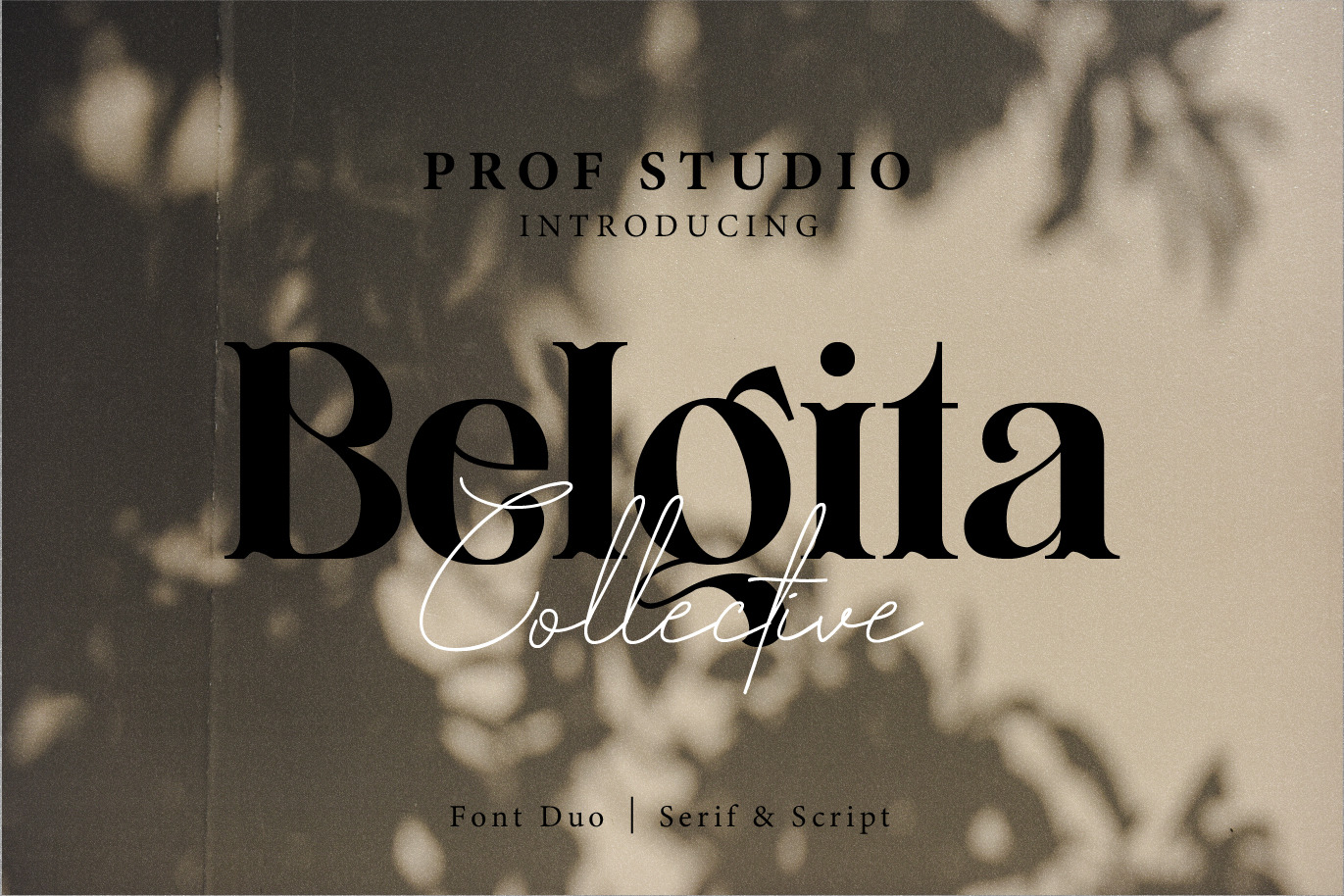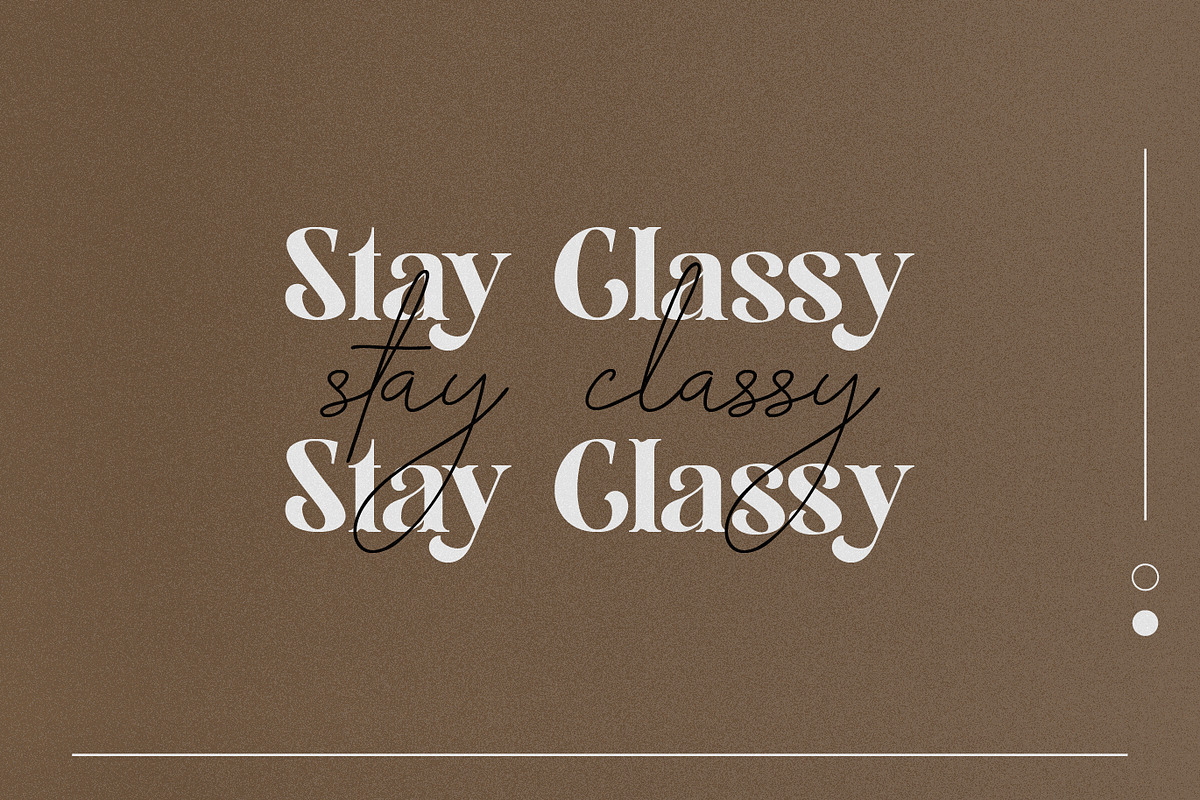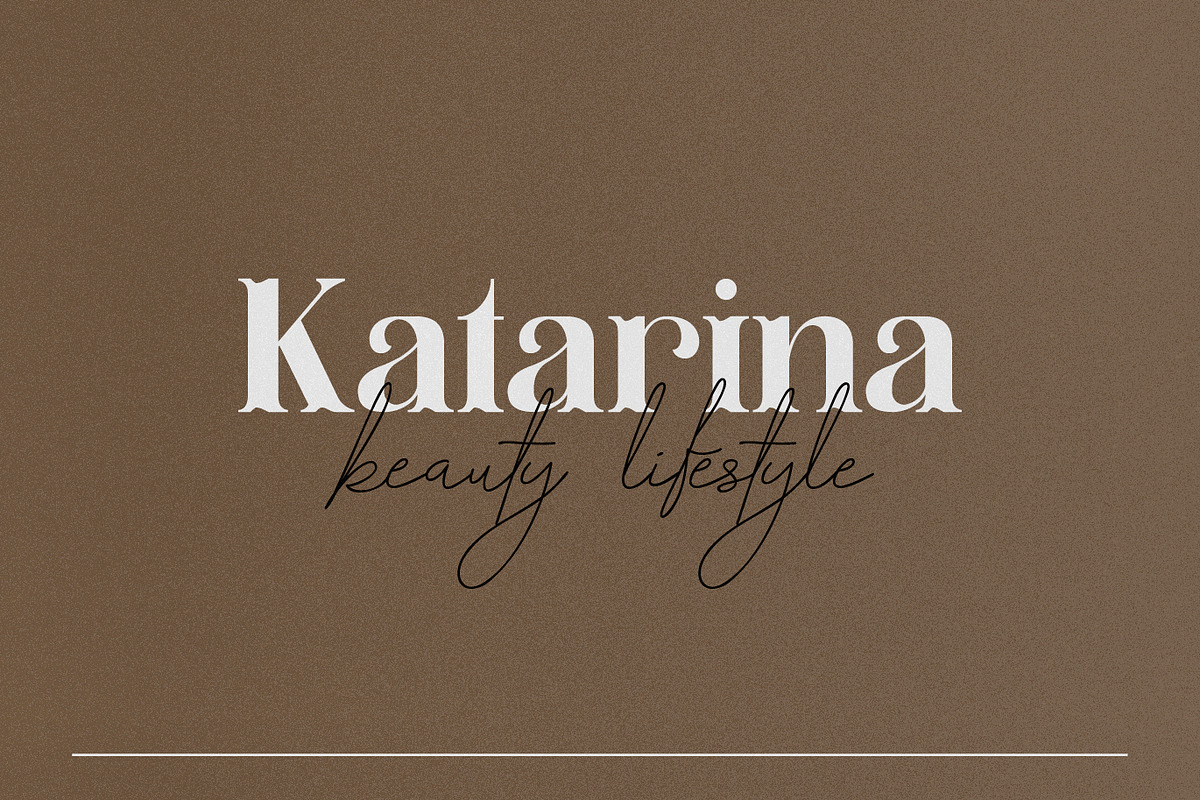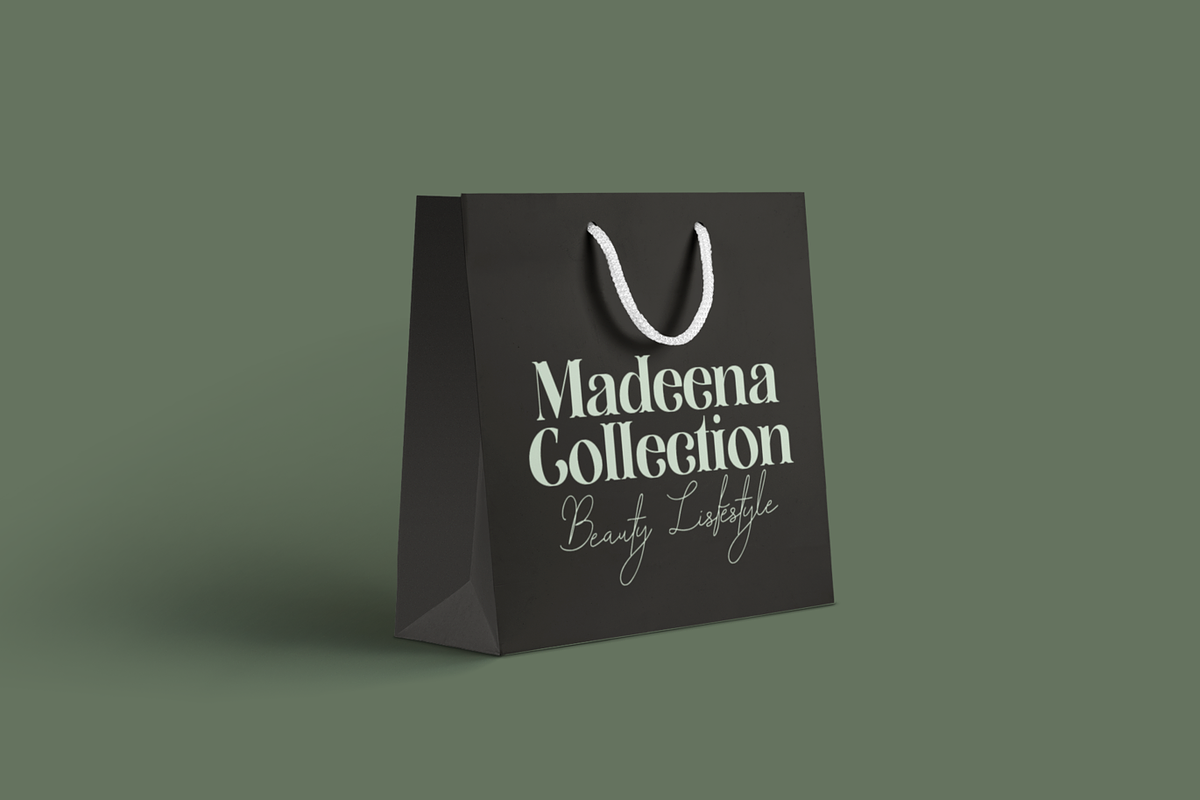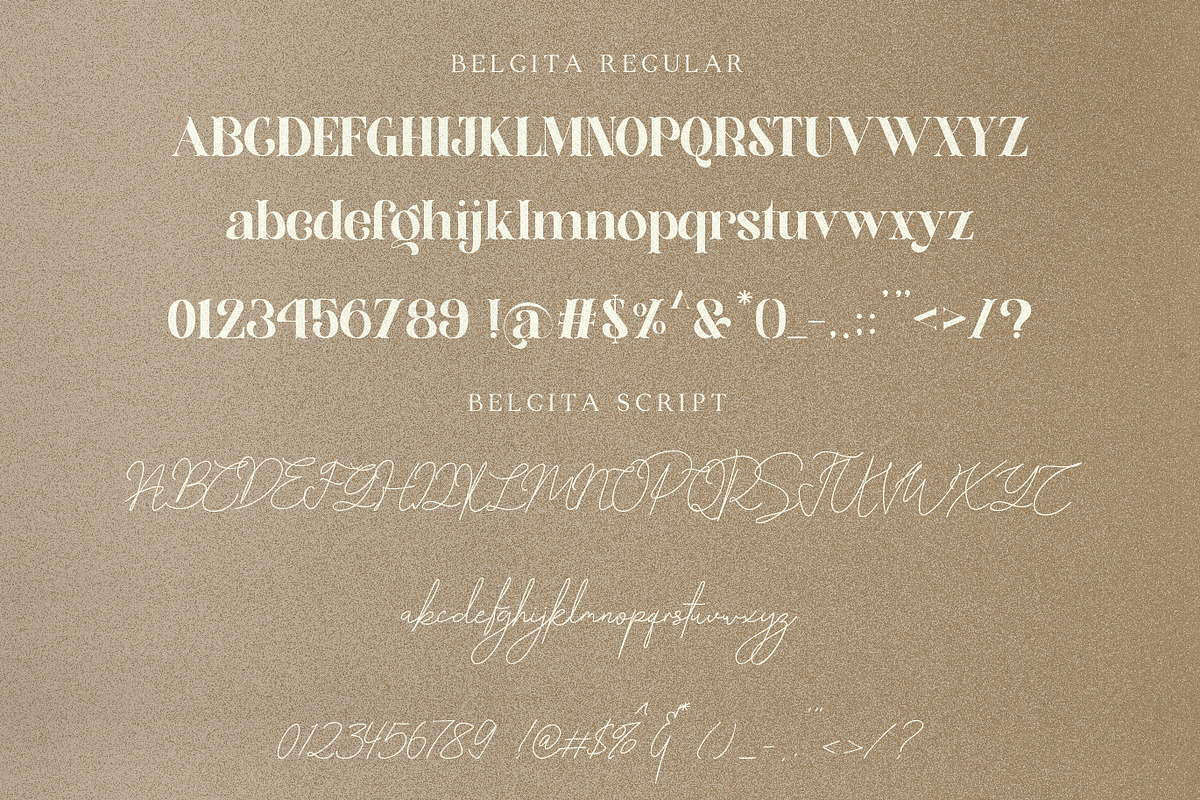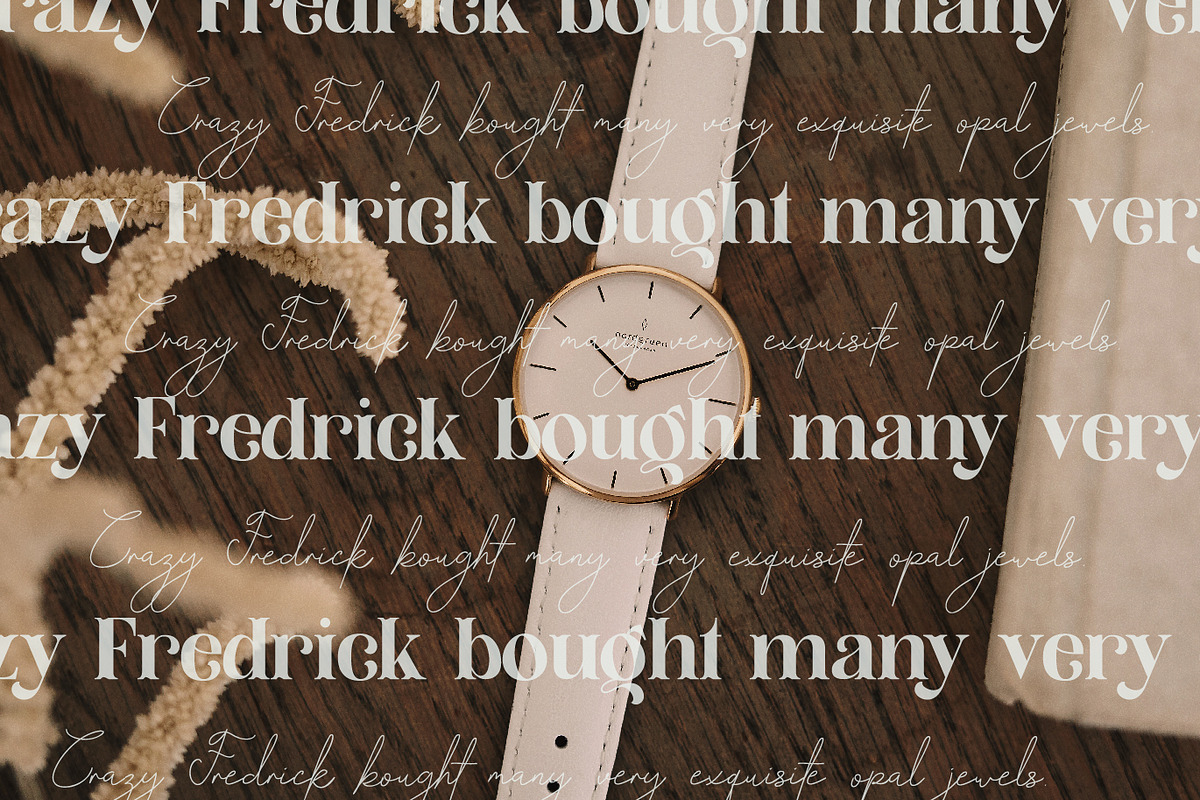
Belgita- Luxury Font Duo
Belgita - Font Duo which can be interpreted professional. we keep this font looks modern, luxury, readable, stylish, catchy and easy to use.
Belgita - is the great choice for event design ,magazine, brand design, invitation, and many other design project. Belgita here to make your work to high level!!!